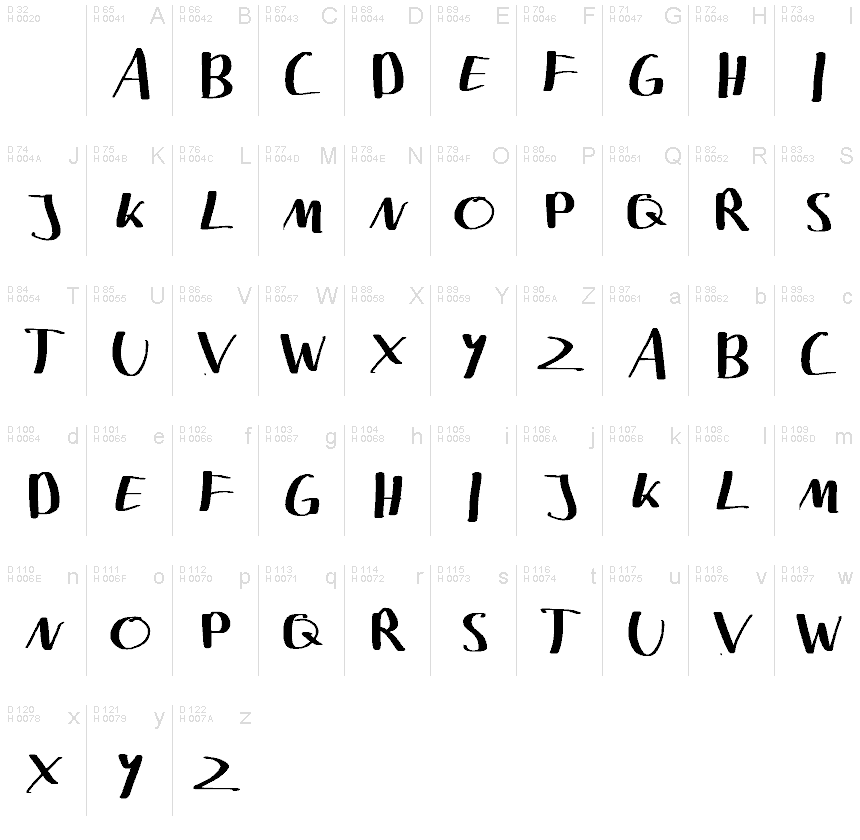
Handywroter Regular
Handywroter font emanates a handwritten style with an organic feel, casual appearance, and expressive character. The light font showcases a futuristic ambiance while also appearing playful at the same time. Slight letter edges can be seen sharp while others round which adds together to make something that’s quite stylish.
The free font has limited characters which makes it perfect for artistic projects such as poster headlines, small/medium-size logos, product branding, packagings of any kind, app interfaces (where large letters aren’t needed), and many more uses! Keep the size above 36pt for optimal results in your artwork!